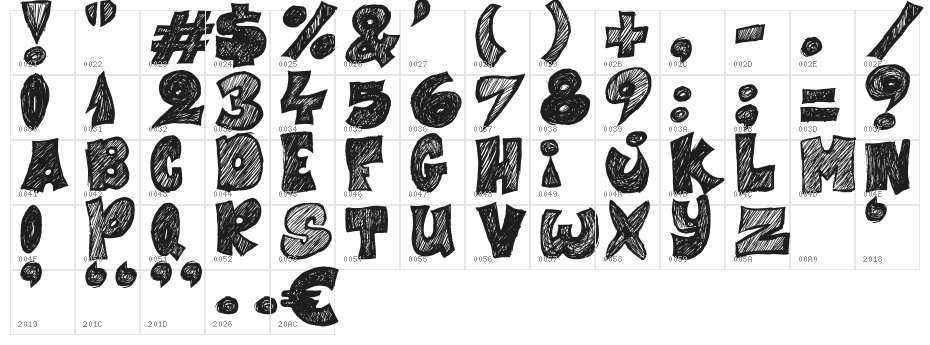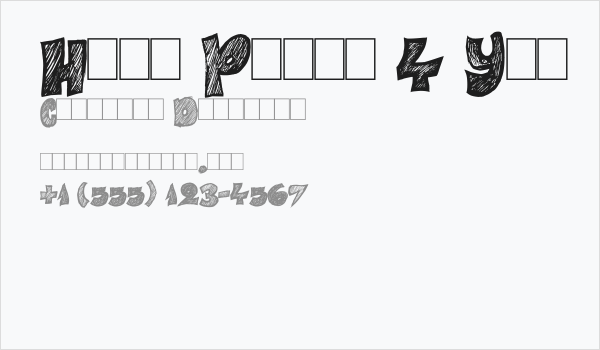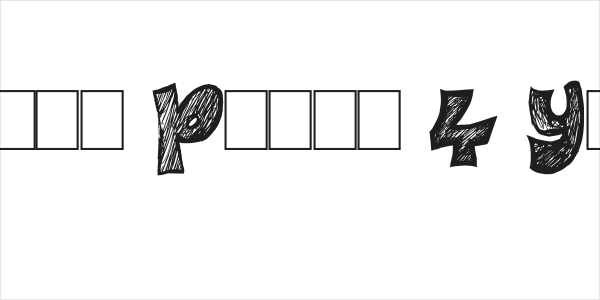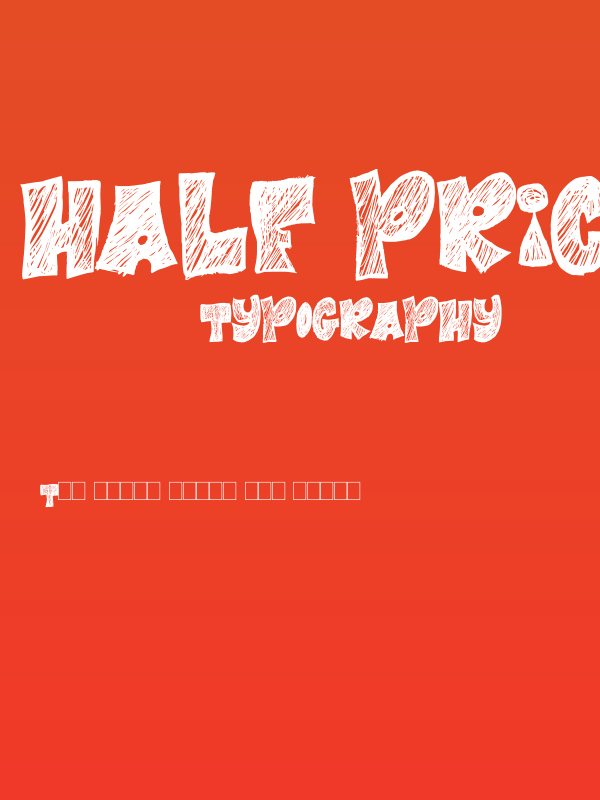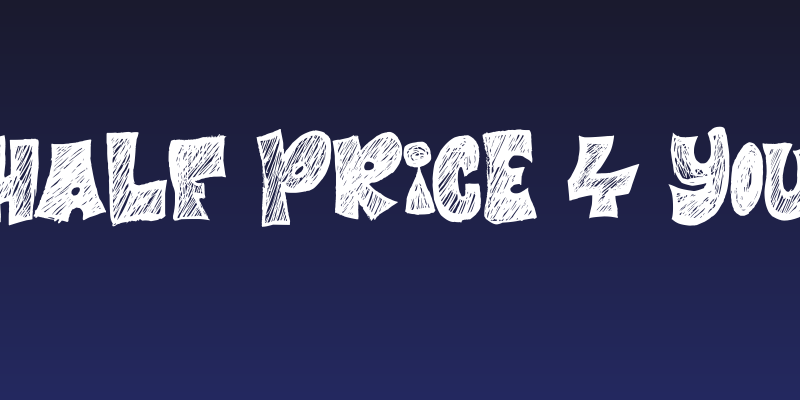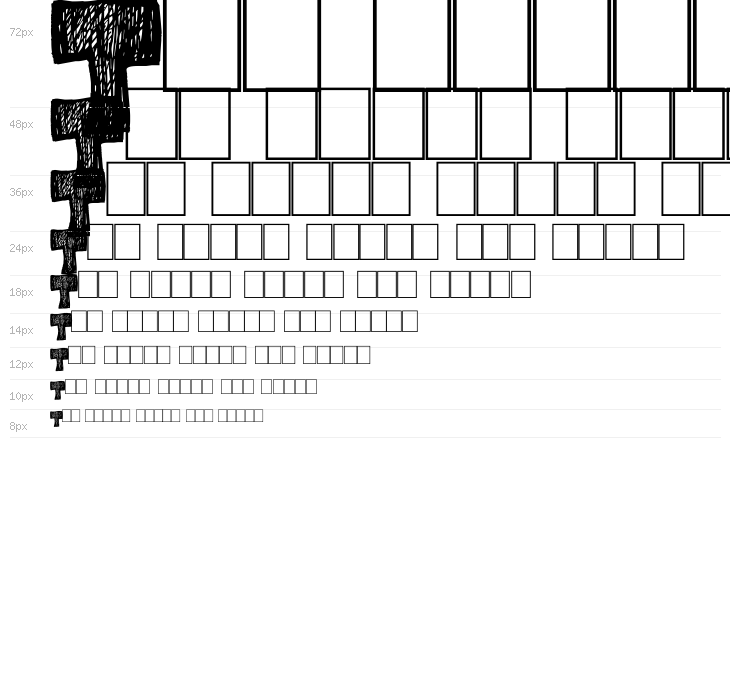
Half Price 4 You Font
Half Price 4 You Description
This font features a bold, playful design with a hand-drawn aesthetic. Each character is filled with a textured, sketch-like pattern that adds depth and personality. The letters are slightly irregular, giving them a whimsical and dynamic appearance. The numbers and special characters follow the same style, ensuring consistency throughout. This font's unique style makes it stand out, perfect for creative projects that require a touch of fun and originality.
| Overall Style | Playful, Hand-drawn, Creative |
| Use Case | Headlines, Posters, Branding |
| Proposed Projects | Ideal for children's book covers, playful posters, comic strips, and creative branding projects. |